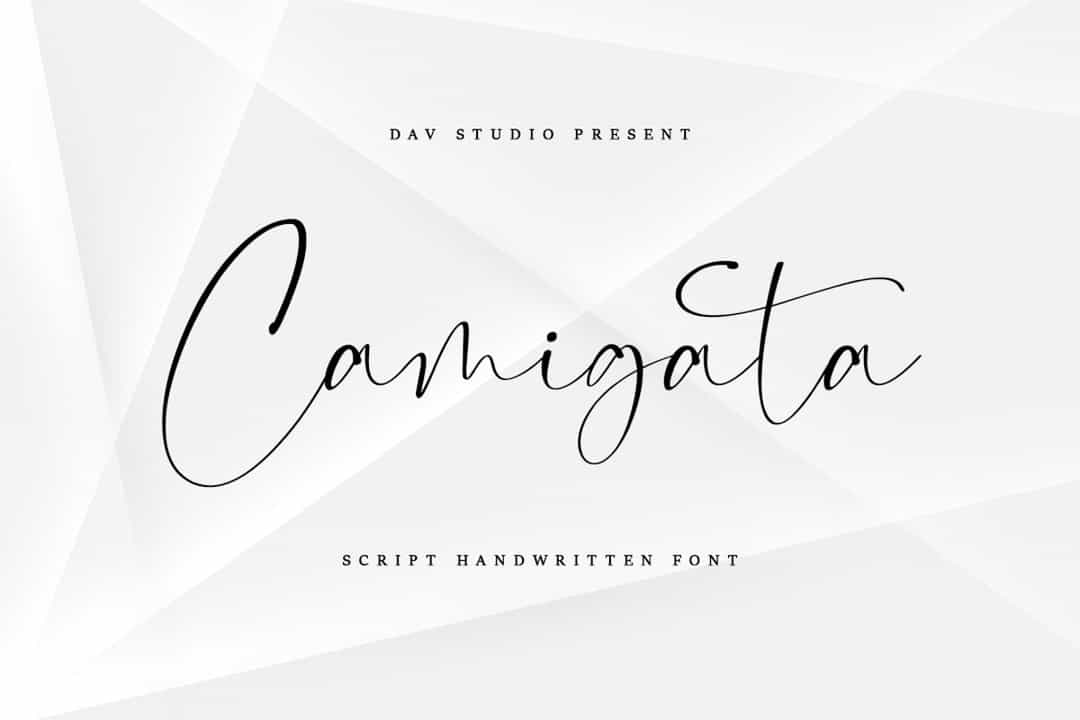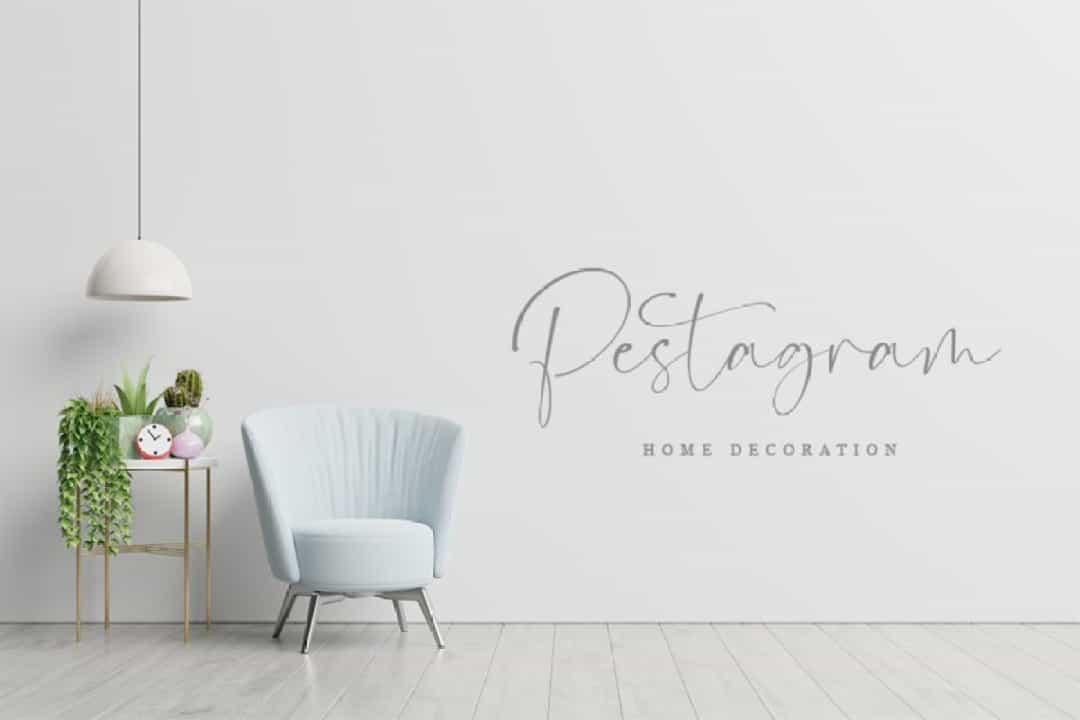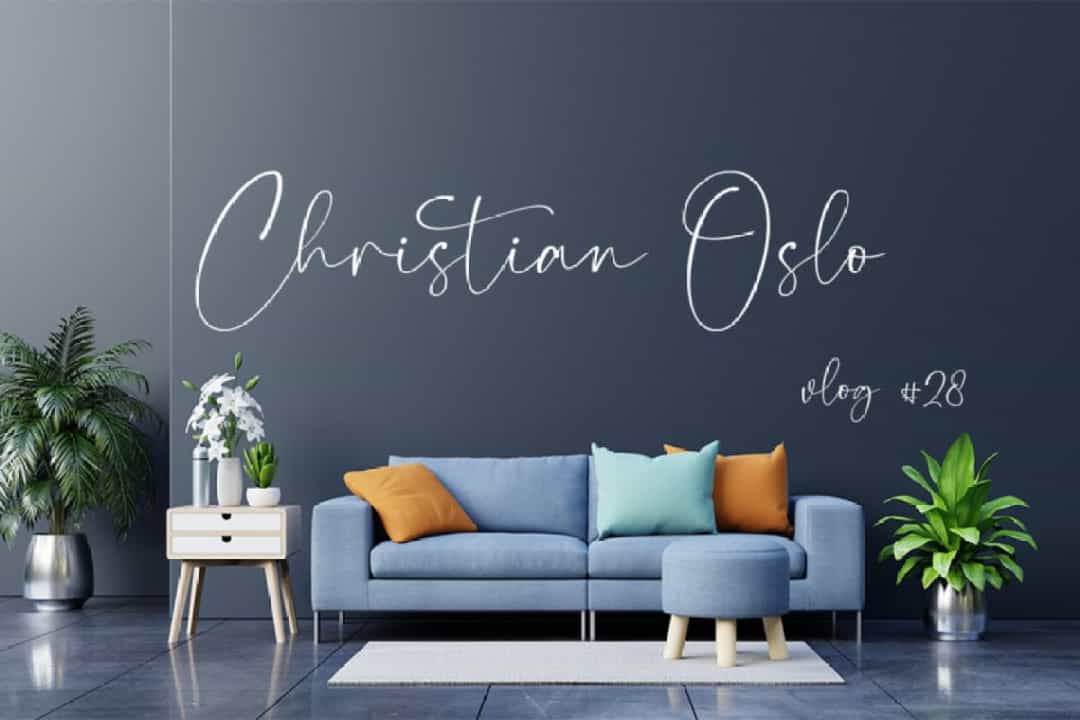
Camigata is what you can call a cute and pretty script font typeface that has been handwritten. Due to the presence of friendly and easy to read characters that harmoniously fit into many designs, this typeface can be used in many creative projects! Beginning with your plans now, implement it and witness as they materialize!